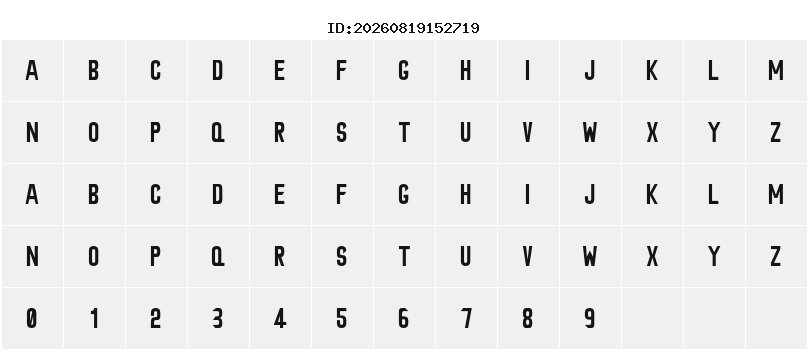
• Font Name: Siliwangi Engineering
• Designer: Ihsan Hasanudin
• Manufacturer: 'Sanz Fonts
• Description: This font is made with Heart and compassion. dedicated Siliwangi University espsecially Engineering faculty.
About Siliwangi Engineering.otf
Siliwangi Engineering.otf is a modern, elegant sans-serif font designed for ultimate readability and visual harmony. Perfect for branding, headlines, web design, and print materials.